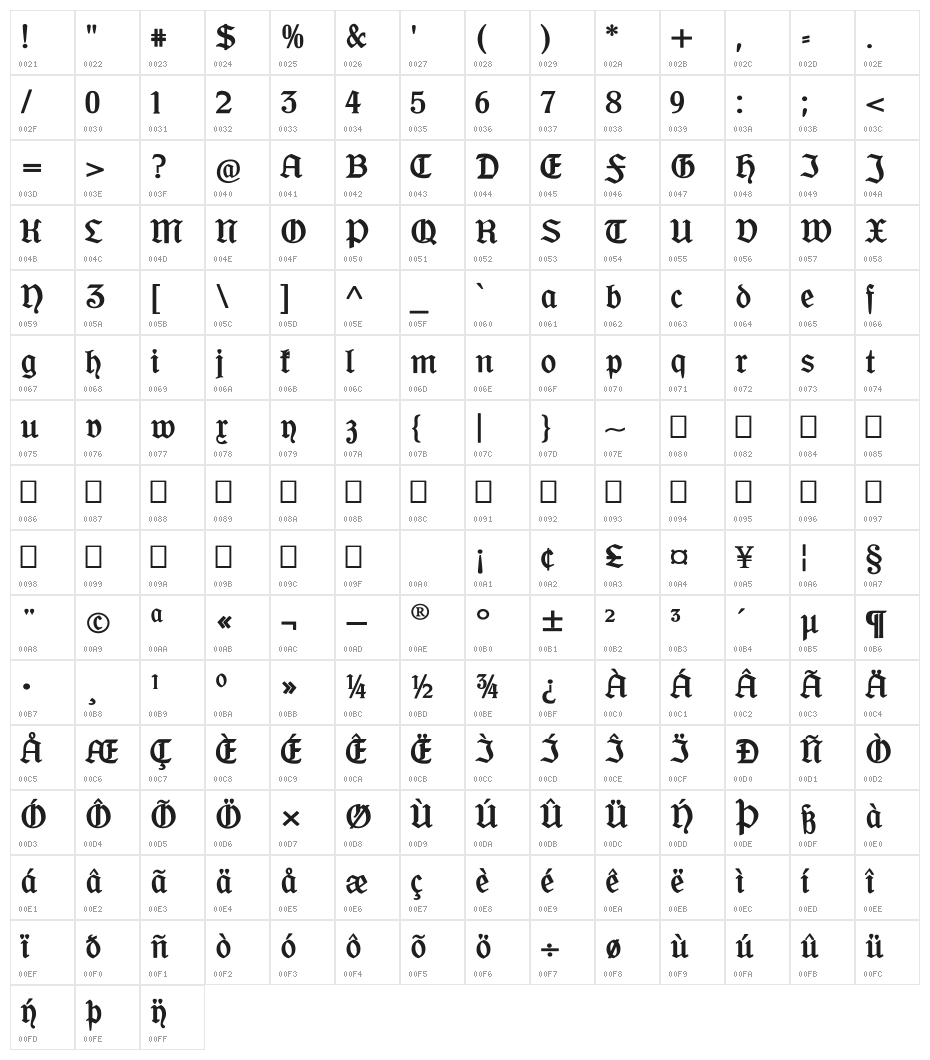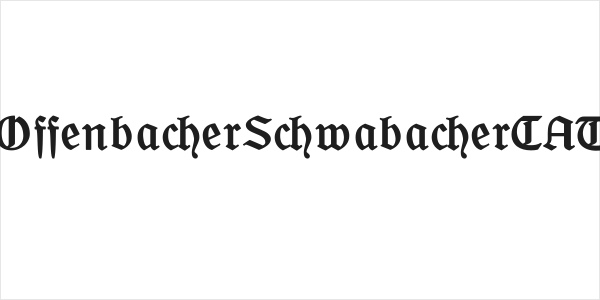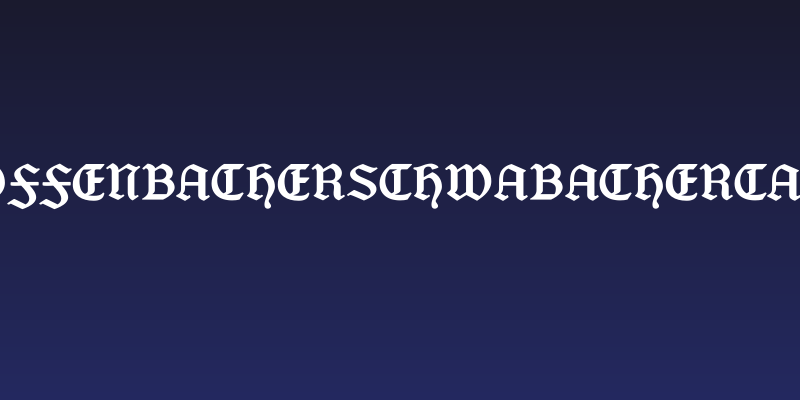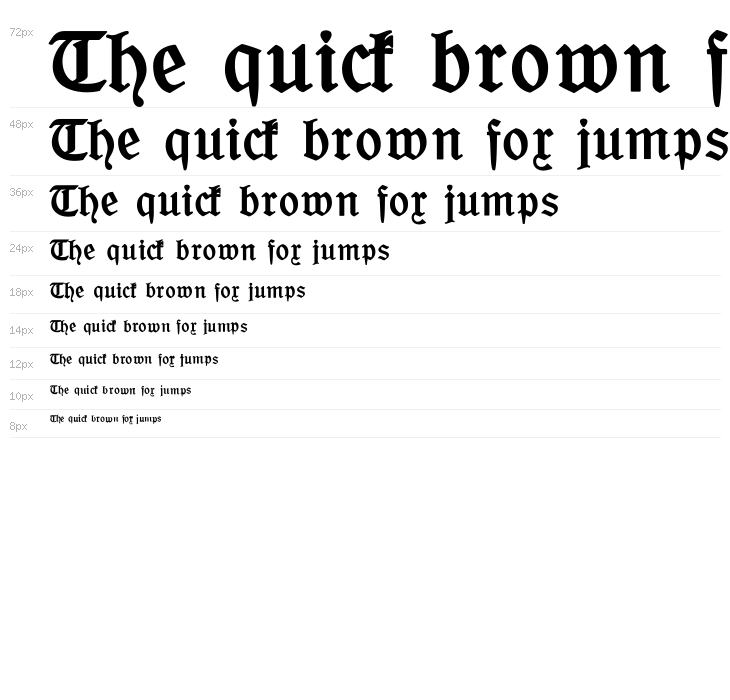
OffenbacherSchwabacherCAT Font
OffenbacherSchwabacherCAT Description
This font exhibits a traditional blackletter style, characterized by its intricate and ornate letterforms. The uppercase letters feature sharp, angular lines with pronounced serifs, giving them a bold and authoritative appearance. The lowercase letters maintain a similar aesthetic, with distinctive loops and curves that enhance the font's decorative nature. The numerals are consistent with the overall style, offering a cohesive look across all characters. Special characters and punctuation are designed to match the elaborate and historical feel of the font, making it suitable for projects that require a touch of elegance and tradition.
| Proposed Projects | Ideal for historical documents, certificates, invitations, or any design requiring a classic and elegant touch. |